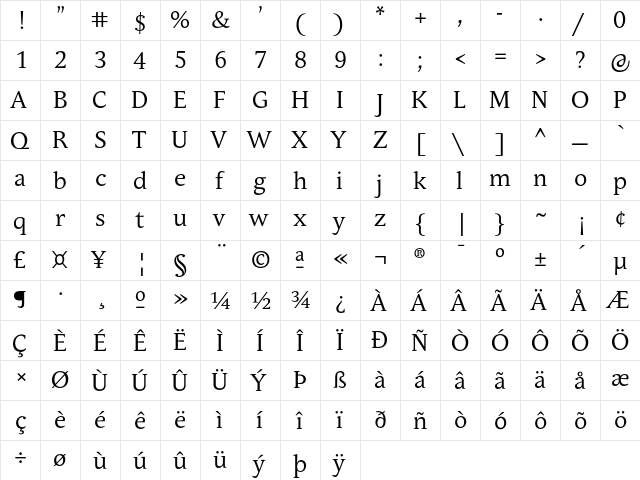
Andulka Book Pro Regular
| Designer | Frantisek Storm |
Design Context for Andulka Book Pro Typeface
Andulka Book Pro takes a measured approach to typography — its balanced proportions and neutral character make it a reliable workhorse for both digital and print work.